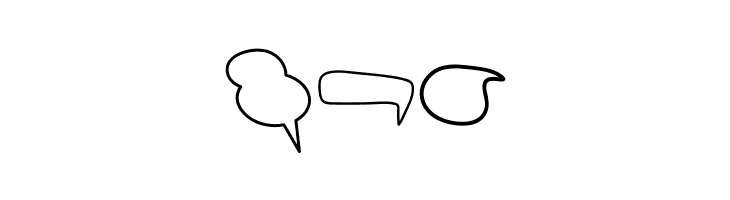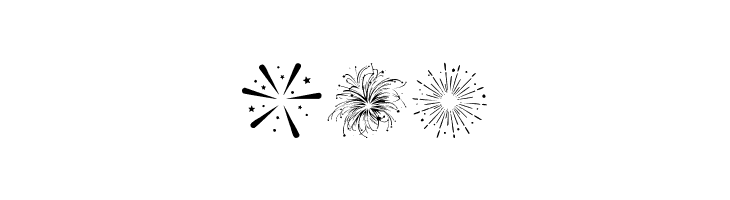
A festive decorative font with diverse fireworks and burst illustrations.
Comic-style speech and thought bubble dingbats in various outlines and fills.